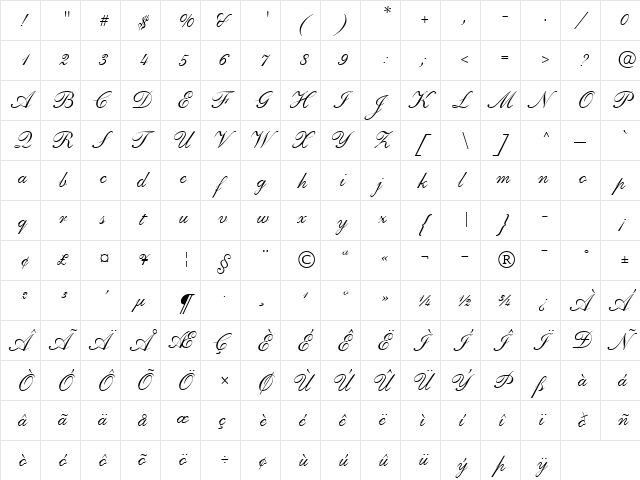
GE Twin Peaks Script Normal
Design Context for GE Twin Peaks Script Typeface
GE Twin Peaks Script brings a calligraphic fluidity to the page — its connecting strokes and expressive curves give it an unmistakably human quality.
Font Pairing: Combine GE Twin Peaks Script with a simple geometric sans for maximum contrast — the tension between flowing curves and clean structure is a classic typographic pairing.
Pro Tip: Pair GE Twin Peaks Script with a clean sans-serif for supporting text. The contrast between fluid script and geometric structure creates an elegant typographic hierarchy.